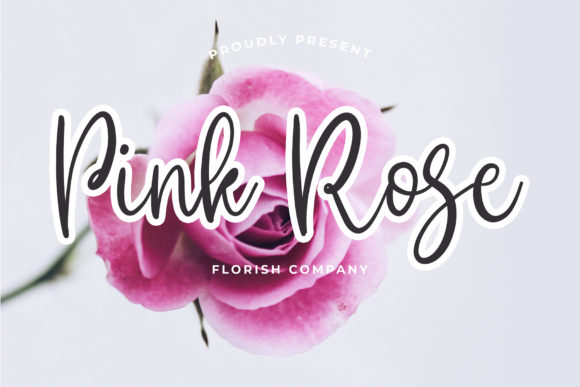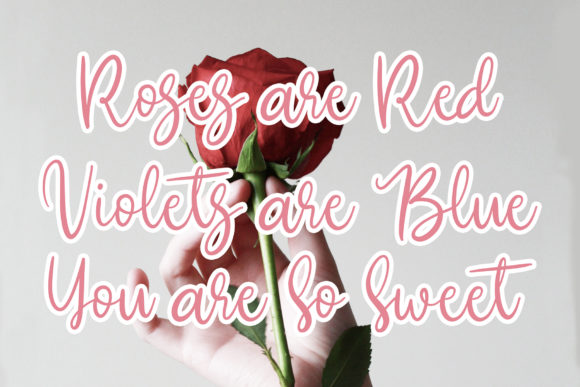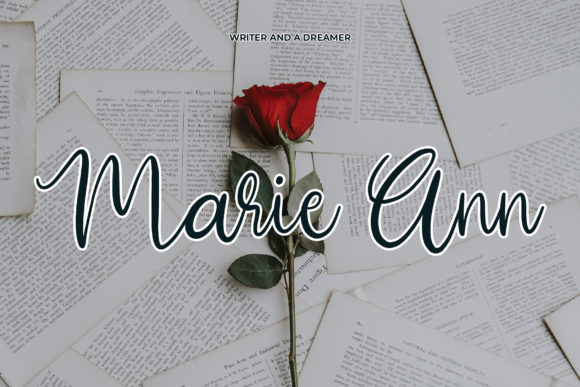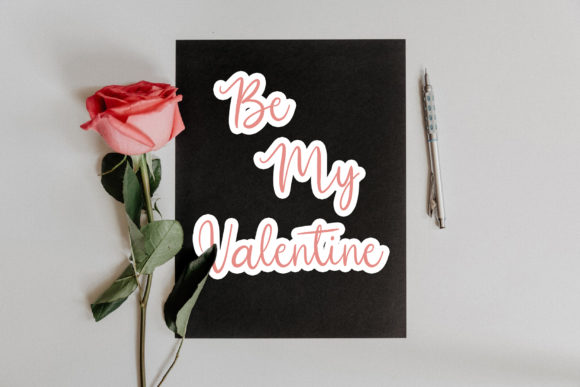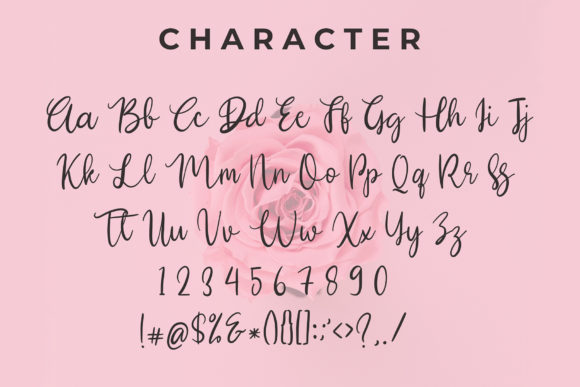
Lincoln Font
About Lincoln Font
Lincoln is a delightful calligraphy font.
You can use it in many applications such as love letters, poetry or inspirational quotes.